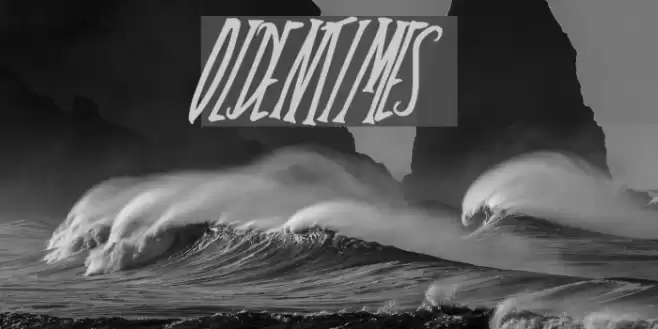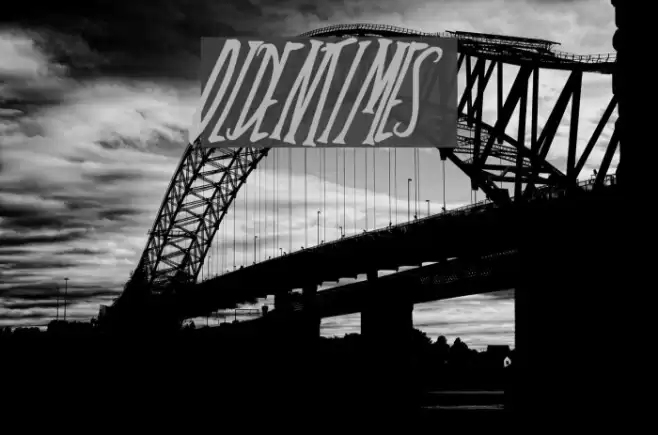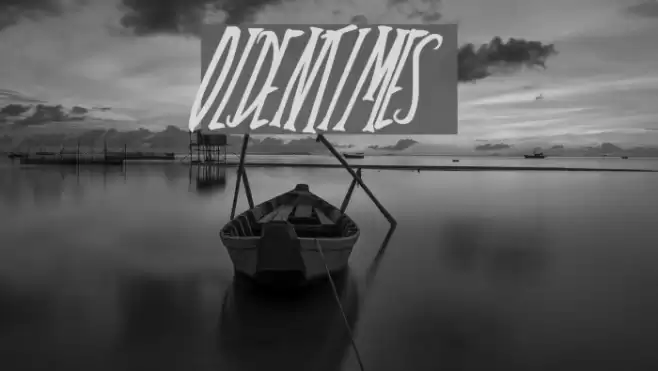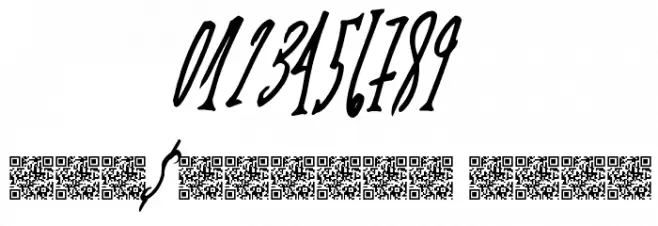
OldenTimes Font
OldenTimes Description
This font features a dynamic and expressive style, characterized by its sharp, elongated strokes and a distinct slant that gives it a sense of motion and energy. The uppercase and lowercase letters maintain a consistent height, creating a cohesive appearance across the alphabet. The numerals and special characters are designed to match the overall aesthetic, with similar angular and flowing lines. The font's unique style makes it stand out, offering a bold and artistic flair that is both modern and reminiscent of vintage calligraphy.
A dynamic, slanted font with sharp, elongated strokes and a vintage calligraphic feel from Uncategorized fonts.
- Proposed Projects: Ideal for creative projects such as posters, album covers, branding for artistic ventures, and any design requiring a bold, expressive typeface.